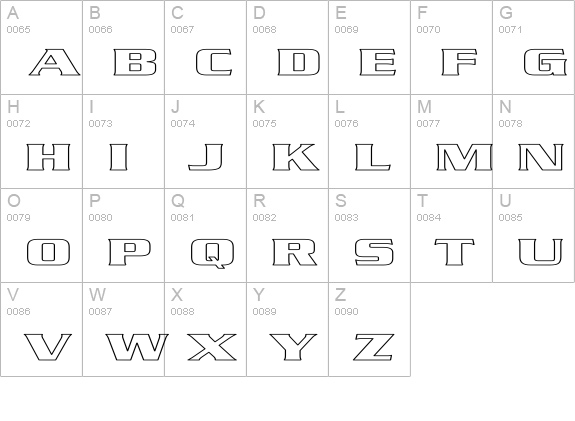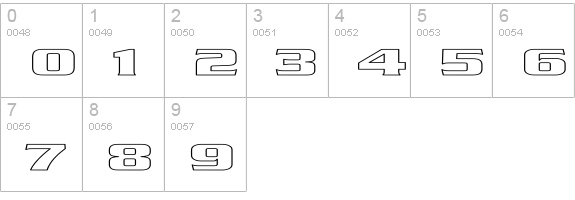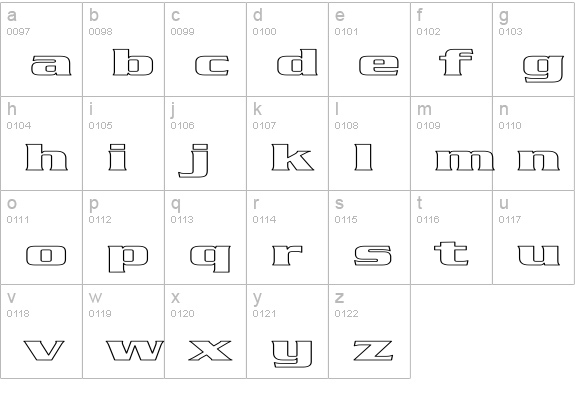
Introducing ??????????? font, a stunning and versatile typeface designed to elevate your design projects to unprecedented heights. With its unique blend of modern and timeless elements, this font captures attention and conveys a sense of elegance and sophistication. ??????????? font offers a wide range of characters, including uppercase and lowercase letters, numbers, punctuation marks, and special symbols. Each character is meticulously crafted to ensure optimal legibility and aesthetic appeal, making it perfect for various design applications. One of the most remarkable aspects of ??????????? font is that it is freely available to download at FontsMarket.com. This means that you can instantly enhance your projects without any cost or hassle. Whether you're working on a personal project, a client's branding, or a professional presentation, this font will undoubtedly add a touch of charm and professionalism. The versatility of ??????????? font knows no bounds. It seamlessly adapts to different design styles and themes, whether you're aiming for a clean and minimalist look or a bold and expressive design. Its fluid curves, sharp angles, and balanced proportions make it a visually captivating choice that never fails to leave a lasting impression. With ??????????? font, you can unleash your creativity and bring your visions to life. Its wide range of weights and styles allows you to experiment and create unique combinations that reflect your personal style or the requirements of your project. Whether you're designing logos, headlines, posters, invitations, or any other creative endeavor, this font will be your reliable companion, helping you achieve stunning and memorable results. Download ??????????? font for free at FontsMarket.com today and unlock a world of possibilities for your design projects. With its exceptional quality, versatility, and the ease of access, this font is a true gem that every designer should have in their toolkit. Embrace the beauty of ??????????? font and elevate your designs to new levels of excellence.